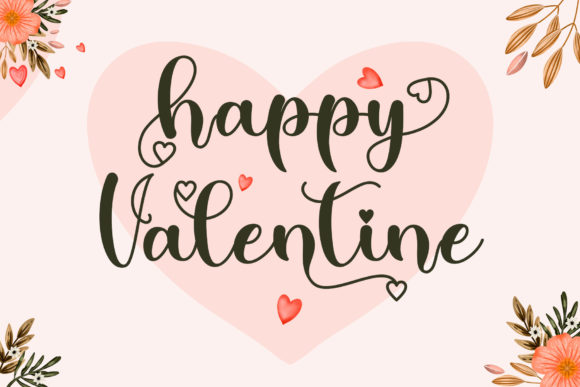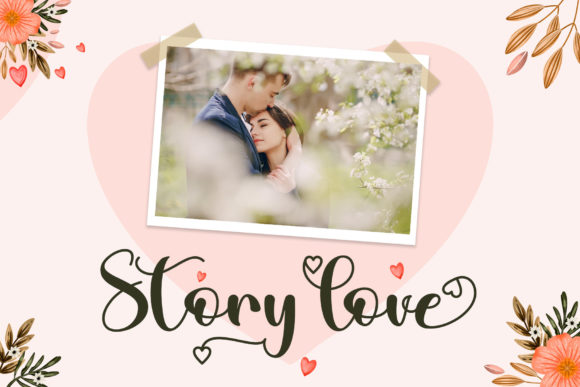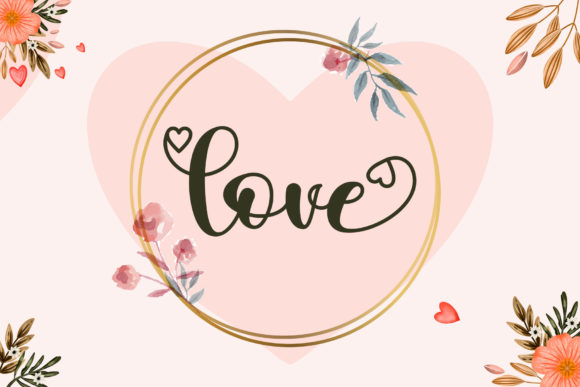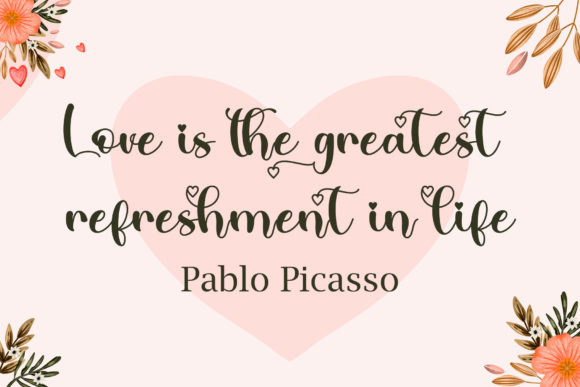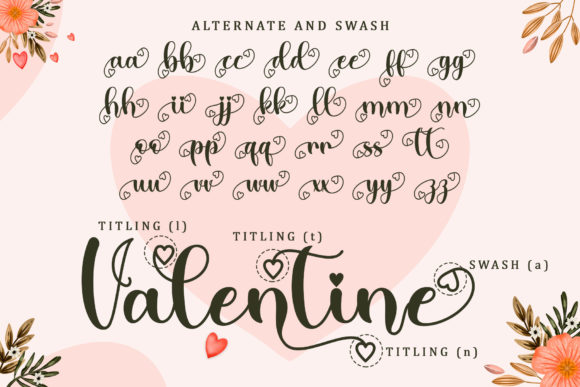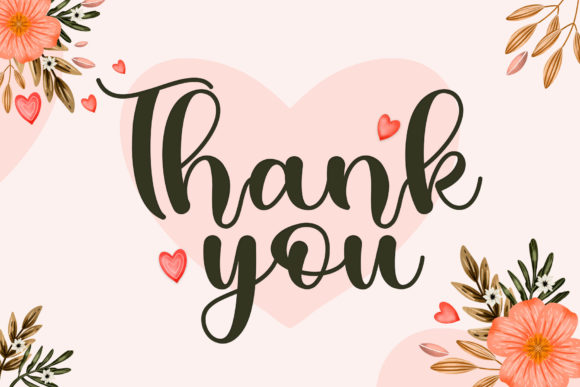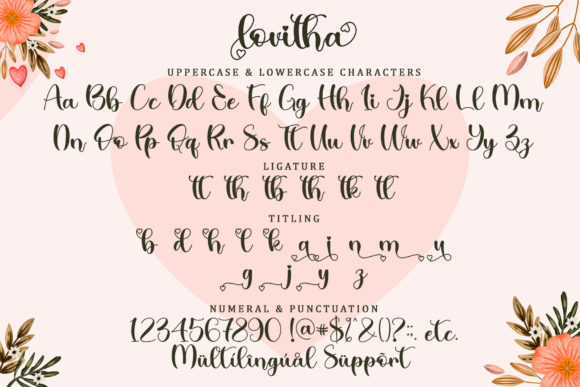
Lovitha Font
About Lovitha Font
Lovitha is a modern handwritten font featuring characters that seem to dance along the baseline. It looks romantic and beautifully flowing, and it would make a wonderful choice for projects that need a personal note.